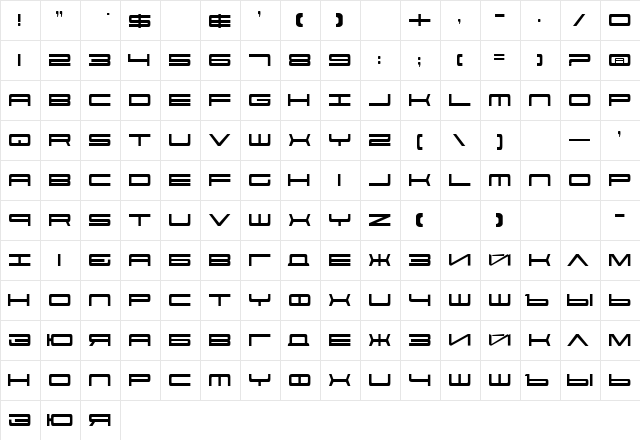
PorschaC Regular
Design Context for PorschaC Typeface
PorschaC offers clean, dependable letterforms without strong stylistic allegiance, making it a practical choice for designers who need flexibility.